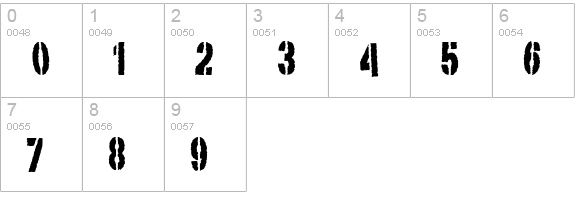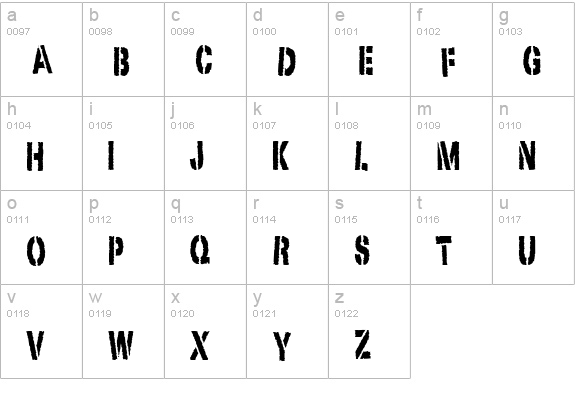
CK Template Font Details
Introducing CK Template font, a modern and stylish typeface that is perfect for a variety of design projects. With its sleek and elegant design, CK Template font is sure to make your text stand out. This versatile font is suitable for a wide range of applications, from branding and logos to social media graphics and website designs. The best part? CK Template font is completely free to download at FontsMarket.com. That's right, you can access this high-quality font at no cost, making it a must-have addition to your font collection. Don't miss out on this amazing opportunity to elevate your designs with CK Template font – download it today and start creating stunning visuals with ease.